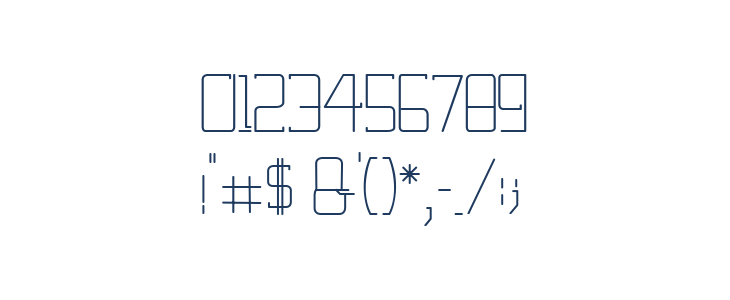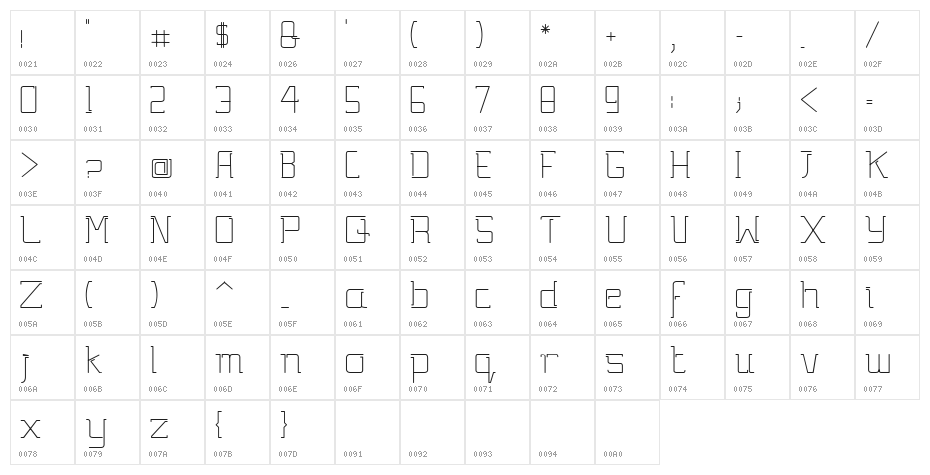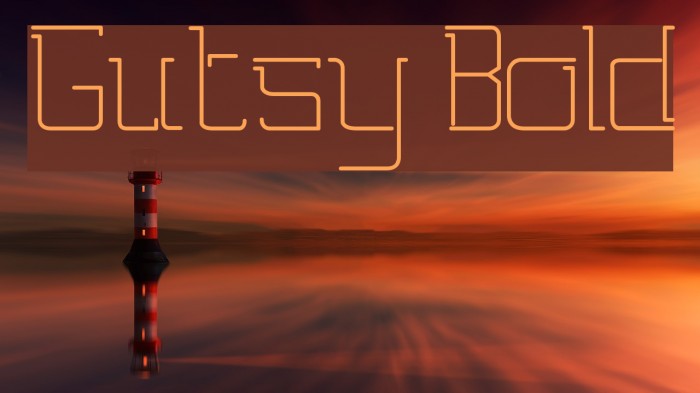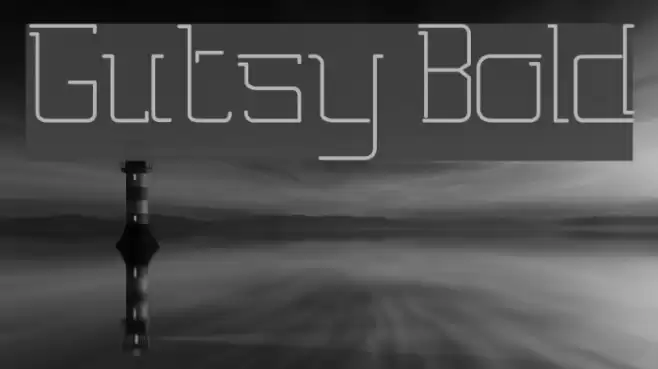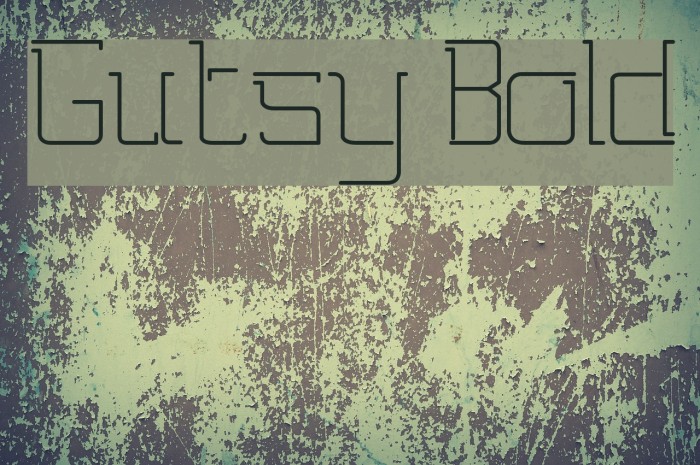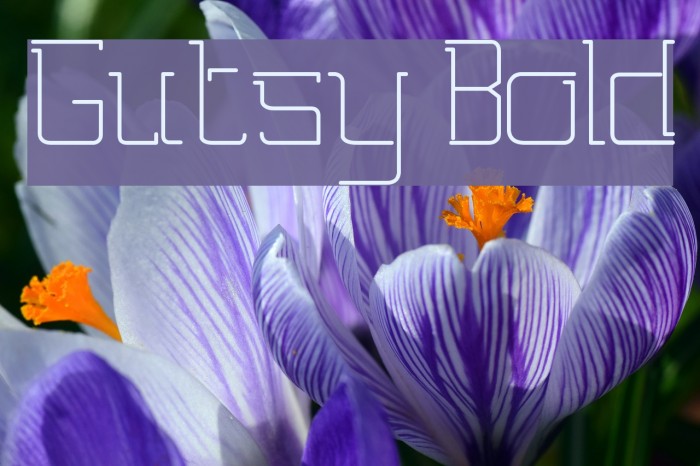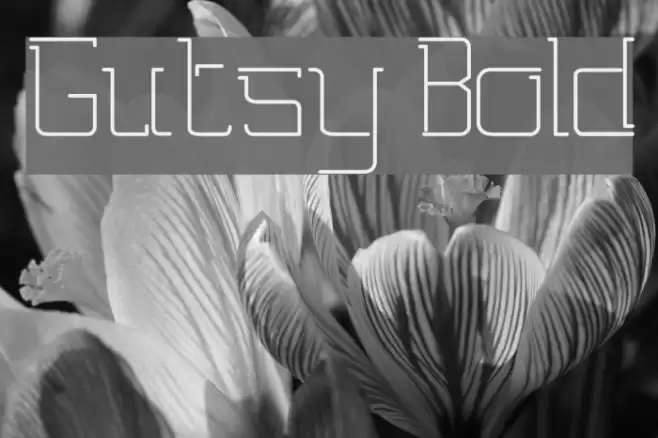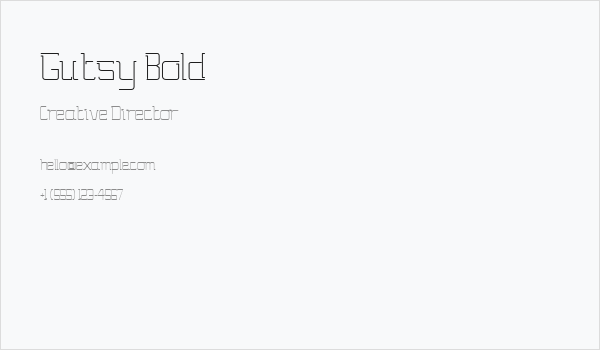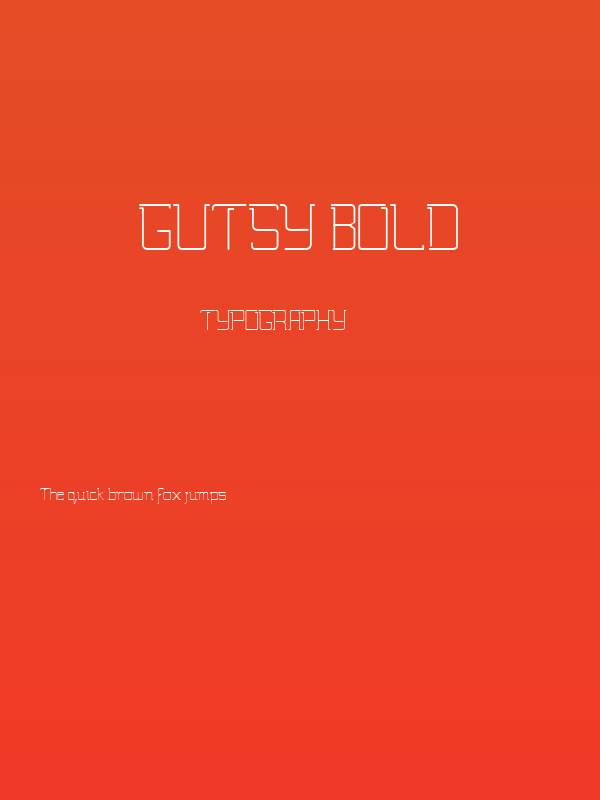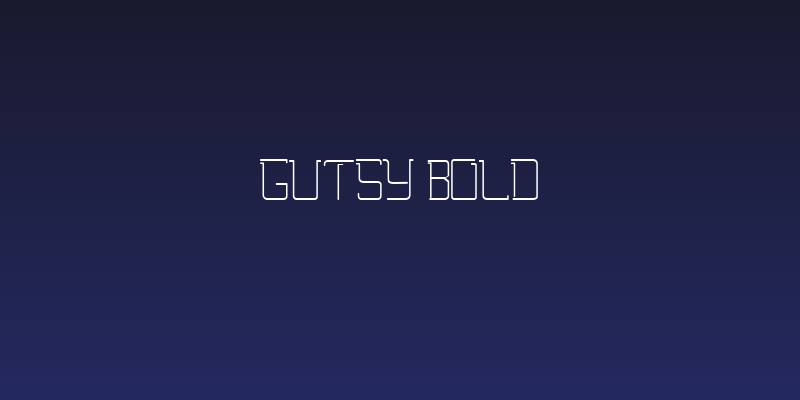
Gutsy Bold Font
Gutsy Bold Description
This font features a unique, geometric design with a modern and futuristic feel. The characters are constructed with a single line weight, giving it a monospaced appearance. The uppercase letters have a distinct angularity, while the lowercase letters maintain a consistent height and width, providing a uniform look. The numerals are clear and legible, matching the overall style of the alphabet. Special characters are included, maintaining the same linear and angular design. This font is ideal for projects that require a clean, technical aesthetic.
Use CaseLogos, Digital interfaces, Tech branding
Proposed ProjectsIdeal for tech branding, digital interfaces, and modern graphic design projects.